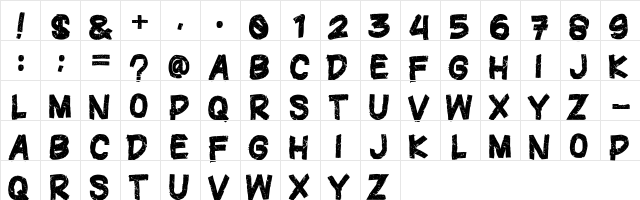
FREEZONE Regular Font Preview
FREEZONE Regular
FREEZONE Regular Font Details
| Foundry | Creativework69 Studio |
| Designer | Daddi Daryawan |
Design Context for FREEZONE Typeface
FREEZONE is a composed and adaptable typeface that performs quietly and consistently across a wide range of design contexts.